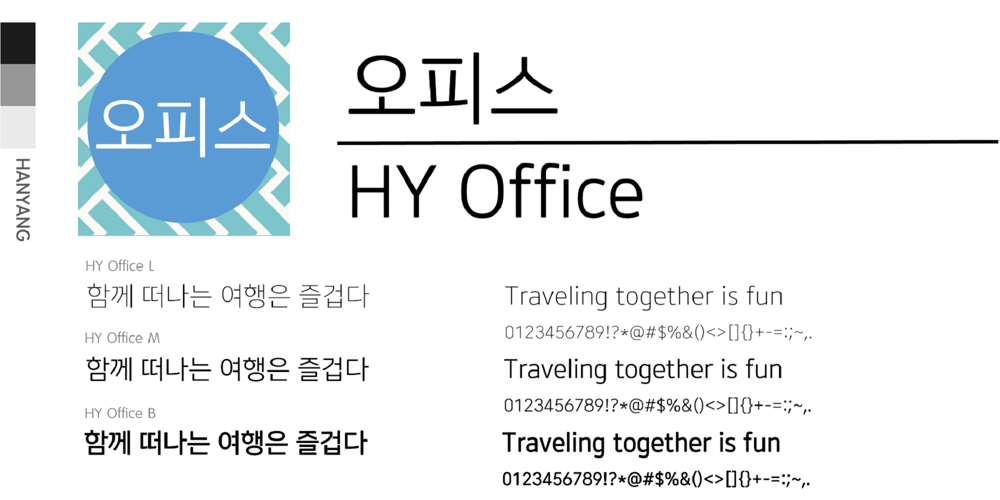
HY Office
HY Office font
HY Office Font Family was designed by font hy and published by HY Font. HY Office contains 3 styles and family package options. It is a long Gothic font with upper line alignment that takes Gothic to the next level with a modern design.All aspects required for a basic font were taken into consideration, such as constant character spacing, smooth stroke processing, appropriate space distribution, and even composition of light, medium, and bold gray levels. Office fonts that have already been verified in various OSs and documents are suitable for body text and titles.